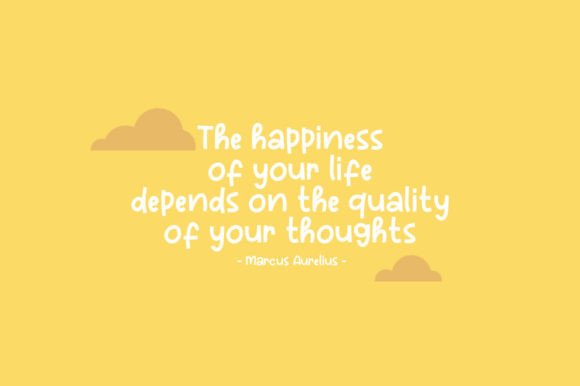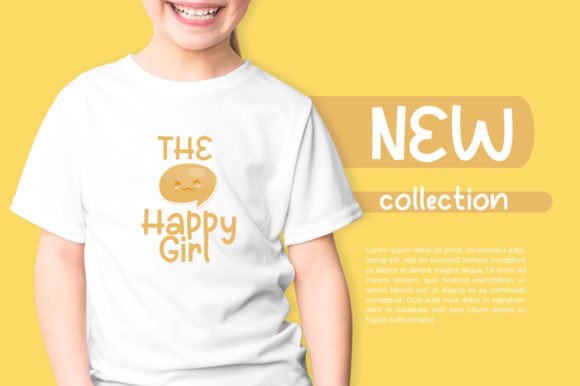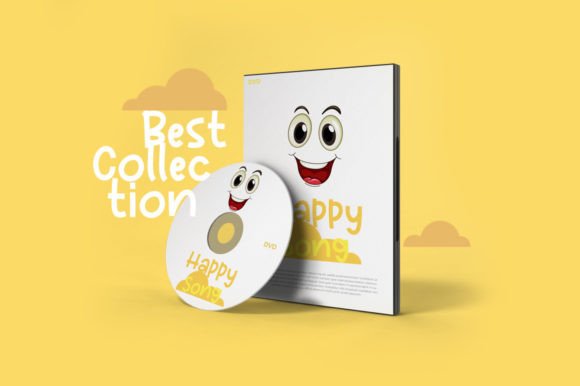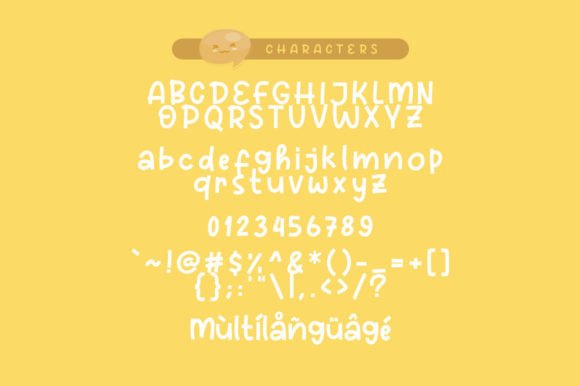
The Perfect Smiley for Your Designs
Have you ever been brainstorming a new project, and suddenly a burst of creativity hits you? You envision a colorful character, a playful logo, or an adorable font that perfectly captures the mood of your creation. This is exactly what happens when designers stumble upon the perfect font, and for many, that font is the Cheese Smile Font.
This fun and cool display font is specifically designed for cartoon-related designs, children’s games, and any project that requires a playful touch. The Cheese Smile Font is the perfect choice for designers who want to add a smile to their designs, quite literally! Its value lies in its ability to evoke emotions and create a sense of warmth, making it a valuable addition to any designer’s toolkit.
Cheese Smile Font Key Features
- Font Family: Cheese Smile Font is a unique, hand-drawn font designed to evoke a sense of playfulness and whimsy.
- Size: The font comes in 6 different font sizes, ranging from 24 points to 72 points, to cater to various design needs.
- Resolution: Optimized for high-resolution displays, Cheese Smile Font is suitable for use in digital and print media, including logos, signage, and packaging design.
- Unique Characteristics: This font features a distinctive, hand-drawn style with irregular shapes and lines, giving it a one-of-a-kind appearance that can add a touch of personality to any design.
- Language Support: Cheese Smile Font supports a wide range of languages, including Latin, Greek, and Cyrillic scripts, making it a versatile choice for designers working on international projects.
Designer Review: Cheese Smile Font
I’ve had the chance to work with the Cheese Smile Font and I have to say, it’s a unique and quirky choice. Here’s what I think:
- Customizable – The font comes with various weights and styles, allowing you to tailor it to your specific design needs.
- Playful vibe – The Cheese Smile Font’s playful and whimsical feel is perfect for designs that need a lighthearted touch.
- Good legibility – The font is easy to read, even at smaller sizes.
- Not suitable for formal designs – The font’s playful nature makes it less suitable for formal or professional designs.
- Limited versatility – While the font is customizable, it may not be the best choice for designs that require a wide range of font styles.
The Cheese Smile Font is a fun and creative choice for designs that need a lighthearted touch. While it may not be suitable for all design projects, it’s a great option for those looking to add some personality to their work. With its customizable options and good legibility, it’s a solid choice for designers who want to add some flair to their designs.
Use Cheese Smile Font for titles, headings, and emphasis in your designs. It’s ideal for creating a playful and friendly atmosphere.
Experiment with different font sizes and colors to get the most out of the font.
Common use cases include social media graphics, blog posts, and marketing materials.